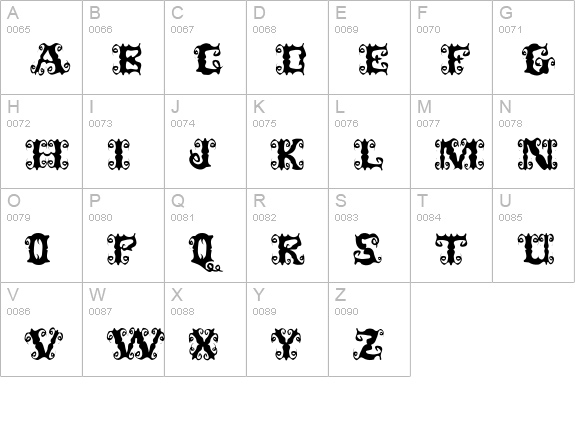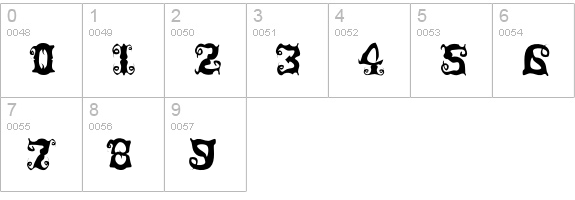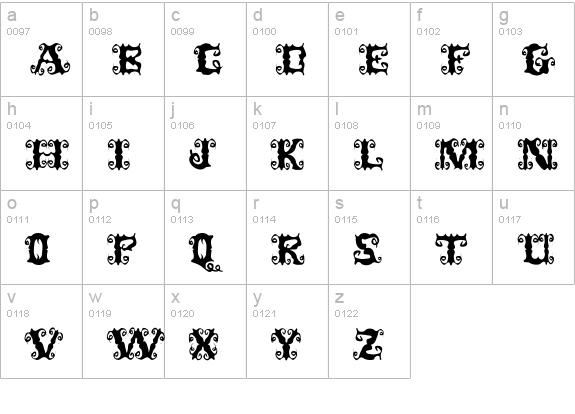
Senorita Font Details
Senorita font is a beautiful and elegant typeface that effortlessly captures the essence of sophistication and charm. Its graceful curves and delicate letterforms make it a perfect choice for any design project that requires a touch of femininity and grace. Senorita font is a versatile typeface that can be used for a wide range of applications, from wedding invitations and greeting cards to logos and branding materials. Its timeless appeal and classic elegance make it a favorite among designers and creatives alike. One of the best features of Senorita font is that it is freely available to download at FontsMarket.com. This means that you can easily access this stunning typeface without having to worry about the cost. Whether you are a professional designer or a hobbyist, Senorita font allows you to add a touch of elegance to your projects without breaking the bank. With its smooth and flowing letterforms, Senorita font creates a sense of movement and rhythm that adds a dynamic touch to any design. Its legibility and readability make it a practical choice for both print and digital projects, ensuring that your message is delivered clearly and effectively. So why wait? Download Senorita font today and enhance your designs with its timeless beauty and elegance. With its free availability on FontsMarket.com, you can start creating stunning designs that will leave a lasting impression on your audience. Don't miss out on the opportunity to elevate your projects with this exquisite typeface.